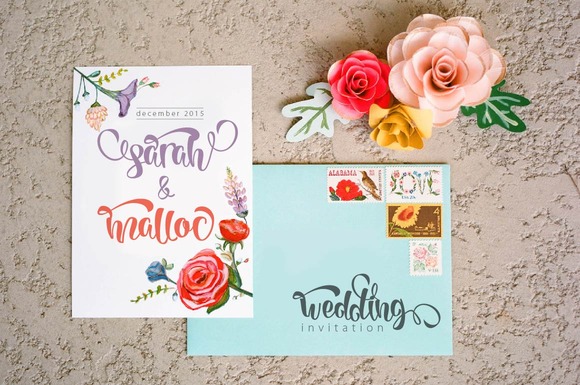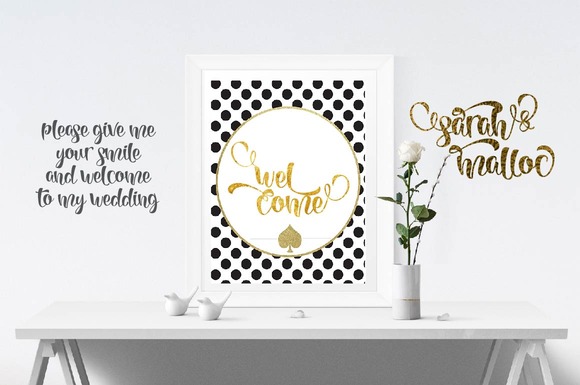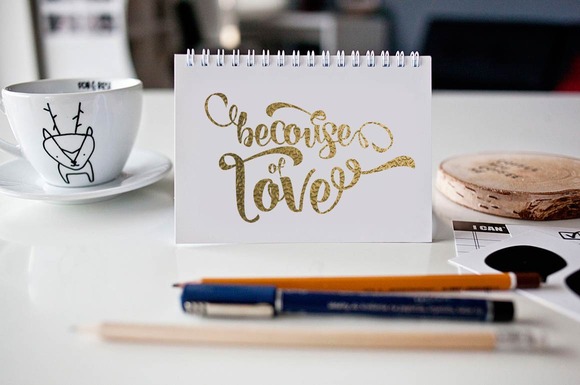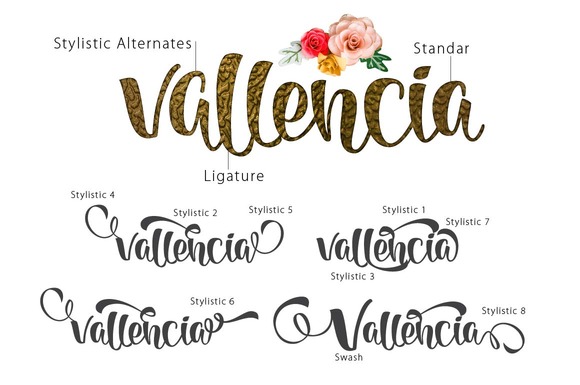
Introduction to Love Sania Font
As a designer, there’s nothing quite like the thrill of bringing a creative project to life. It’s the moment when your vision finally takes shape, and you see your idea transform into a beautiful, tangible reality. For me, that moment came when I stumbled upon the Love Sania Font, a stunning modern lettering typeface that has since become my go-to resource for any project requiring a touch of elegance and sophistication.
With its high-quality design and versatility, the Love Sania Font has proven to be an invaluable asset in my toolkit. Whether I’m working on a poster, a t-shirt design, or even a book cover, this font is always a reliable choice. And the best part? It’s available for free download, making it an accessible resource for designers of all levels.
Key Features of Love Sania Font
- Comes in a single weight with a wide range of language support
- Designed with a modern and elegant aesthetic, perfect for various design applications
Honest Review: Love Sania Font
As a designer, I’m always on the lookout for high-quality design resources to elevate my creative projects. Recently, I had the chance to try out the Love Sania Font, and I must say it’s a gem. ✨ The font is elegant, sophisticated, and versatile, making it perfect for a wide range of designs.
One of the standout features of the Love Sania Font is its transparent background, which allows for seamless integration with any design. This is especially useful for designers who prefer to work with transparent backgrounds or create intricate designs.
Here are some of the things I like about the Love Sania Font:
However, I did encounter a few limitations with the Love Sania Font:
Overall, I’m impressed with the Love Sania Font, and I would definitely recommend it to designers looking for a high-quality, free design resource. With a little creativity, you can achieve stunning results with this font.
How to Use Love Sania Font
To get the most out of Love Sania Font, use it in conjunction with a transparent background to create a stunning visual effect. You can also experiment with different font sizes and styles to add depth and interest to your design.
Love Sania Font is perfect for a wide range of creative projects, including wedding invitations, business cards, and social media graphics. Its elegant and sophisticated design makes it an ideal choice for any project where you want to convey a sense of luxury and style.
Alternatives to Love Sania Font
The Great Vibes Font is a beautiful, elegant script font perfect for creative projects that require a high-end design resource. It’s ideal for wedding invitations, branding, and other designs that need a touch of sophistication. Great Vibes Font is available for free download and offers a transparent background, making it easy to customize. It compares well to Love Sania Font in terms of its high-quality design and versatility, but has a more modern and sleek feel.
The Alex Brush Font is a stunning, handwritten font that’s perfect for designers who want to add a personal touch to their projects. It’s ideal for creative projects that require a high-quality design resource, such as branding, packaging, and advertising. Alex Brush Font is available for free download and offers a transparent background, making it easy to customize. It compares well to Love Sania Font in terms of its elegant and sophisticated design, but has a more rustic and vintage feel.
The Ostrich Sans Font is a modern, sans-serif font that’s perfect for designers who want to add a touch of simplicity to their projects. It’s ideal for creative projects that require a high-quality design resource, such as branding, websites, and social media graphics. Ostrich Sans Font is available for free download and offers a transparent background, making it easy to customize. It compares well to Love Sania Font in terms of its high-quality design and versatility, but has a more modern and minimalist feel.